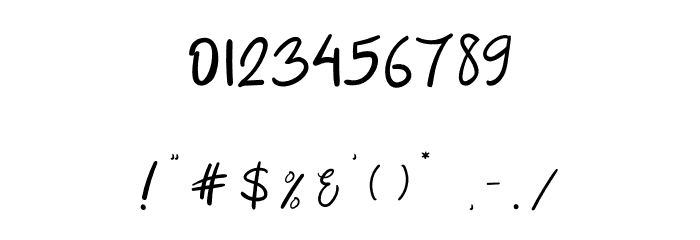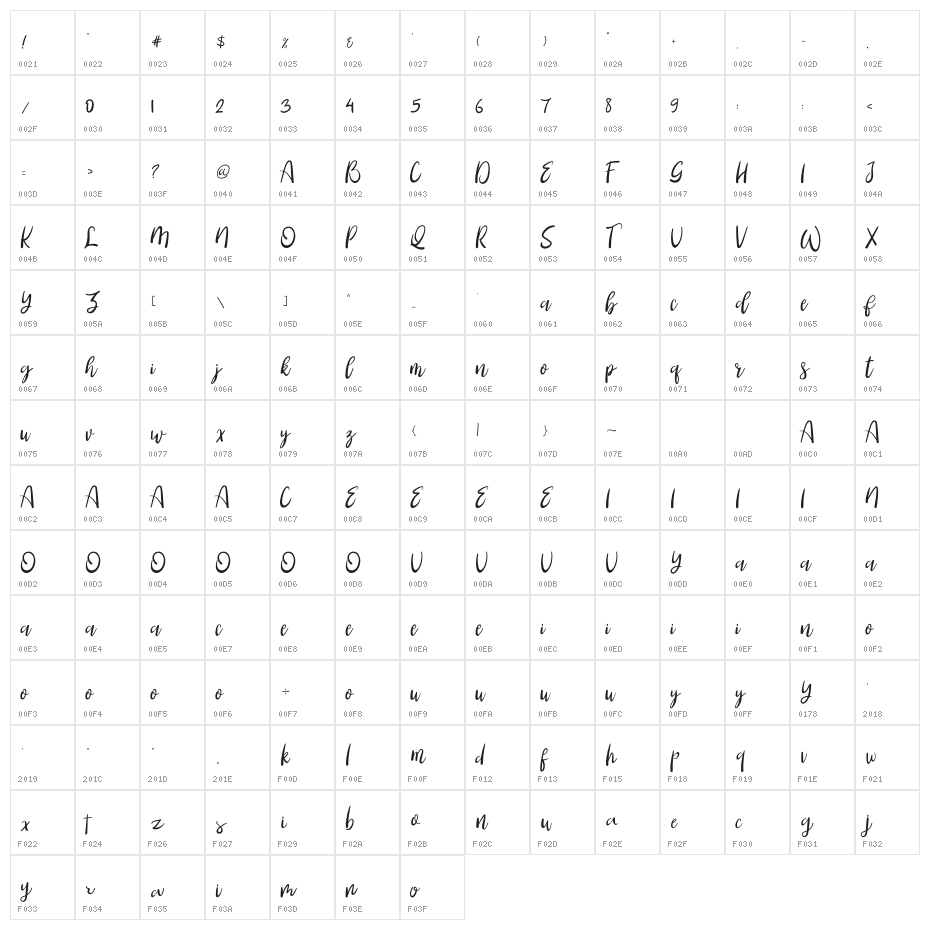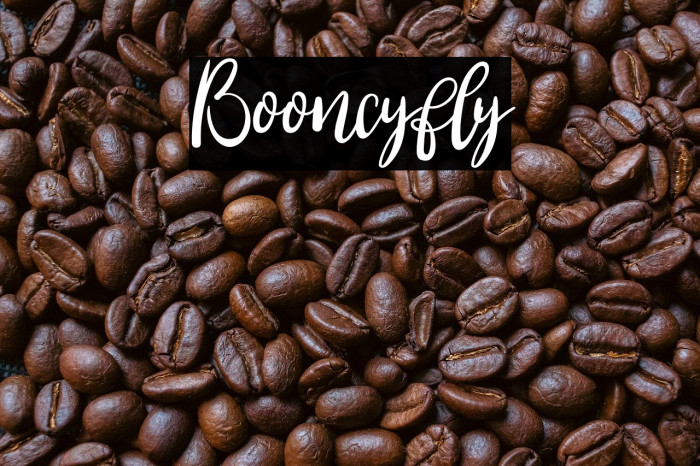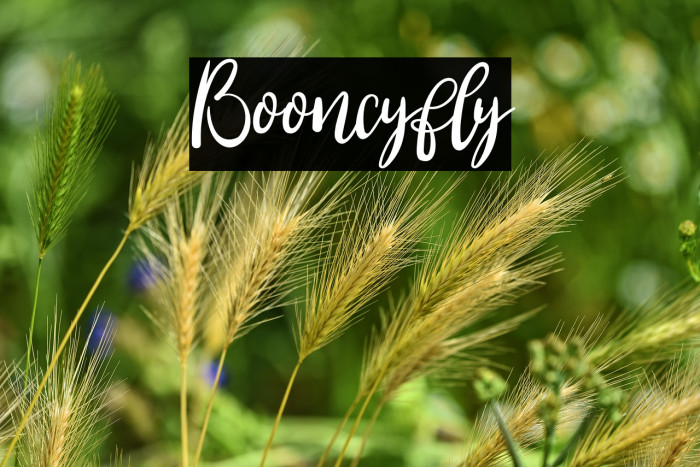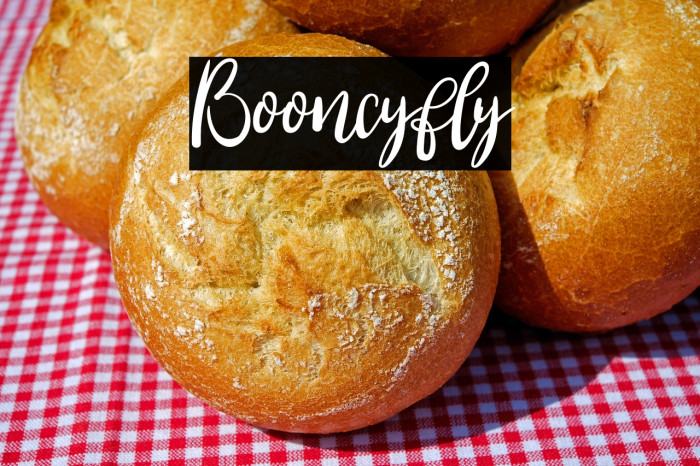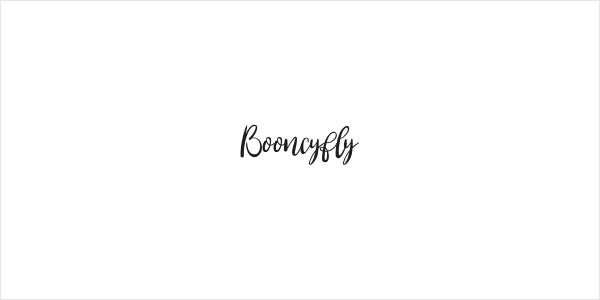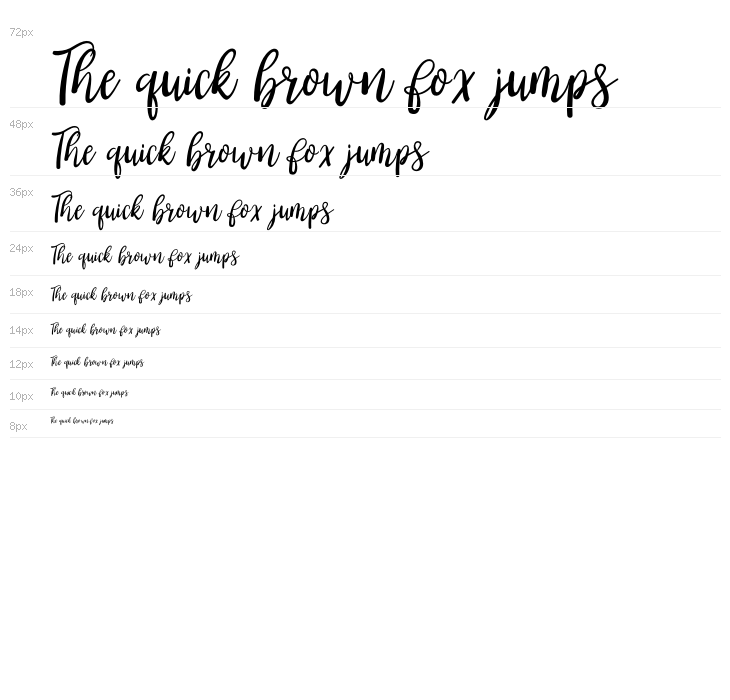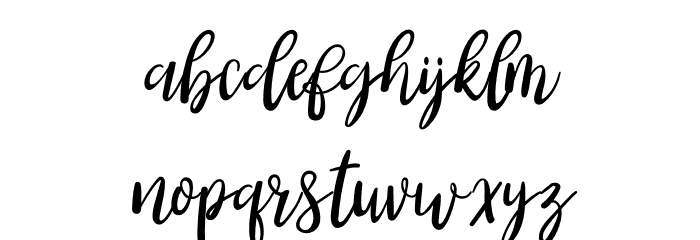
Booncyfly Font
Booncyfly Description
This font exudes a playful and energetic vibe with its flowing, cursive style. The letters are crafted with a smooth, continuous stroke that gives a sense of movement and fluidity. The uppercase letters are bold and slightly slanted, adding a dynamic touch, while the lowercase letters maintain a consistent rhythm with their rounded forms and elegant loops. The numerals are well-integrated, matching the overall style with their curvy lines. Special characters are thoughtfully designed to complement the alphabet, ensuring a cohesive look. This font is perfect for projects that require a personal and friendly touch, such as invitations, greeting cards, or branding for creative businesses.